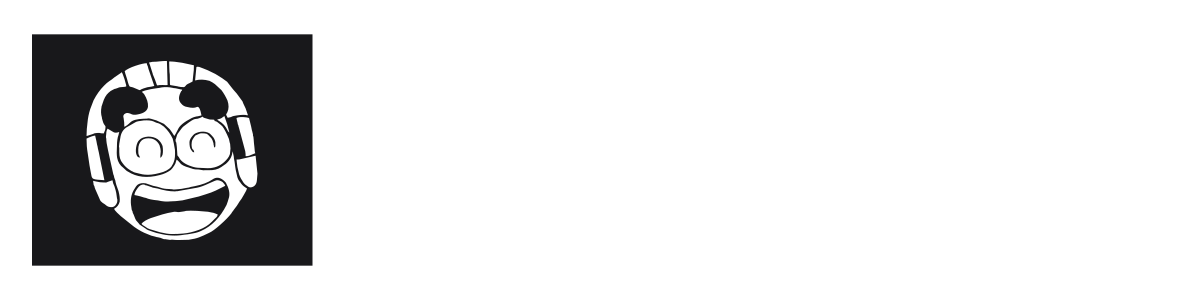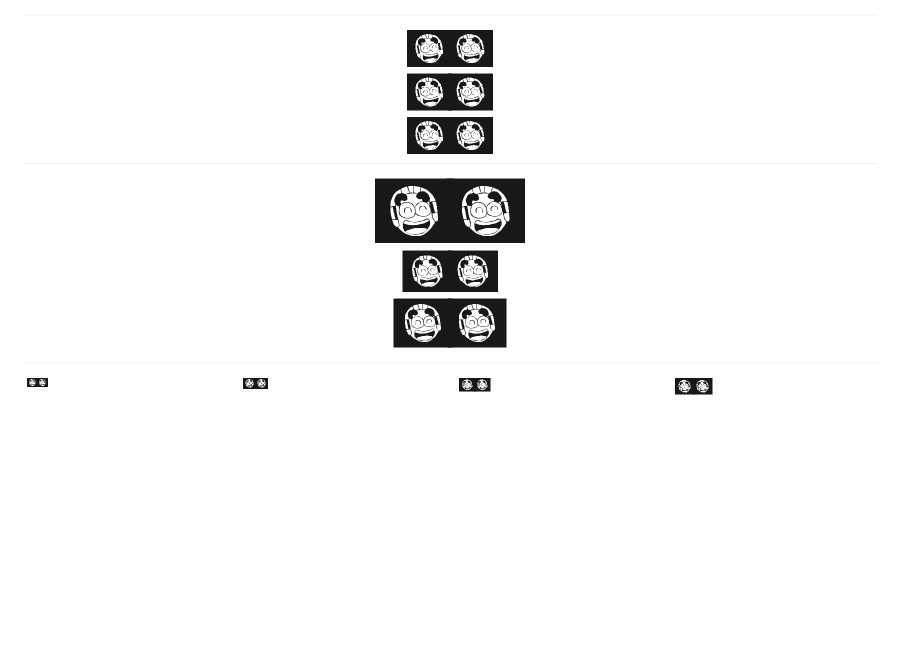
Sweety Tea
Sweety Tea is a cartoon dingbat font from Indonesian designer Ryal Docallisme featuring comic-style character illustrations. The bold, expressive mascot face with headphones and an open-mouthed grin gives it a lively, youthful energy. It works well in playful branding, children's content, and entertainment contexts.